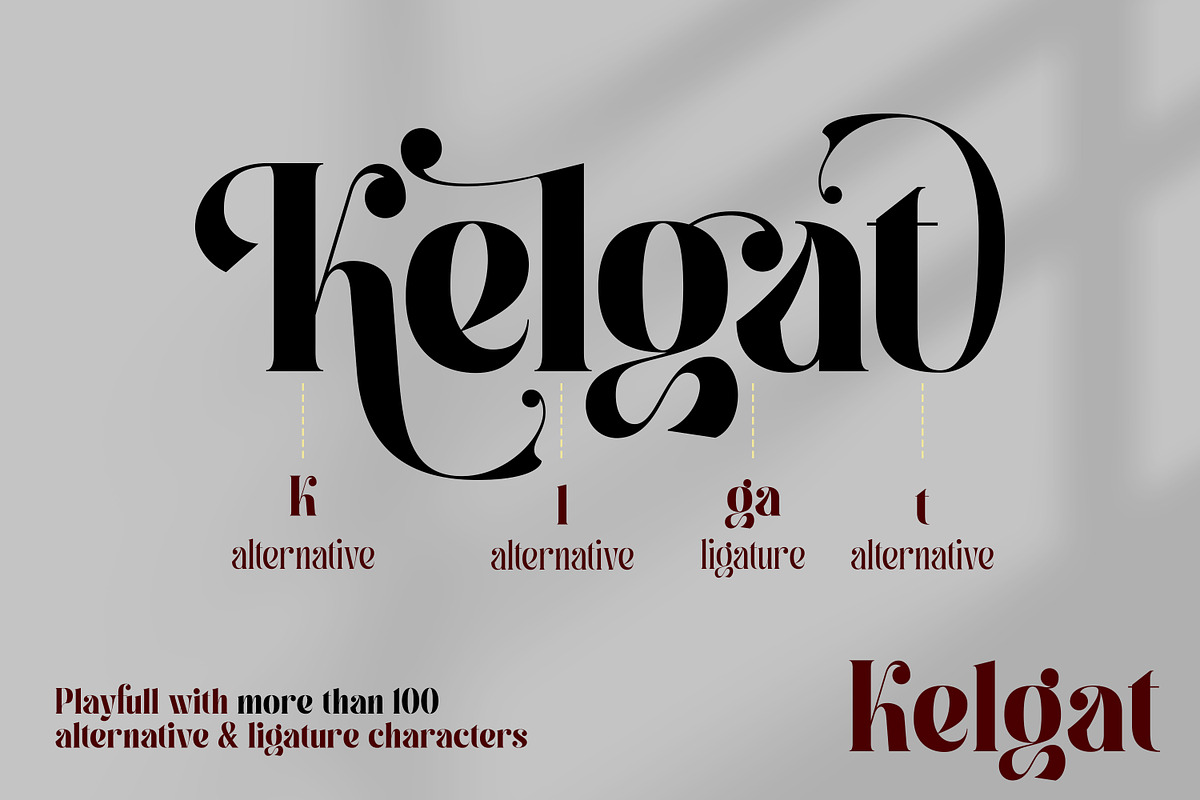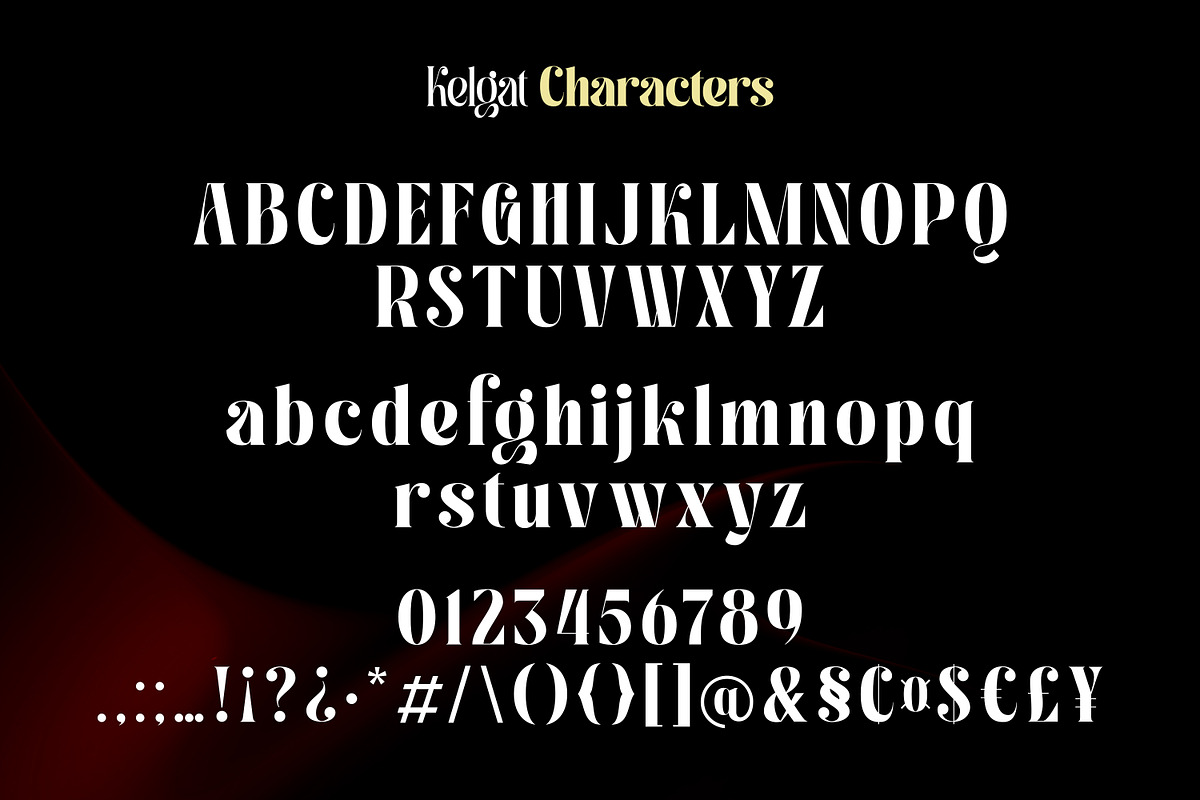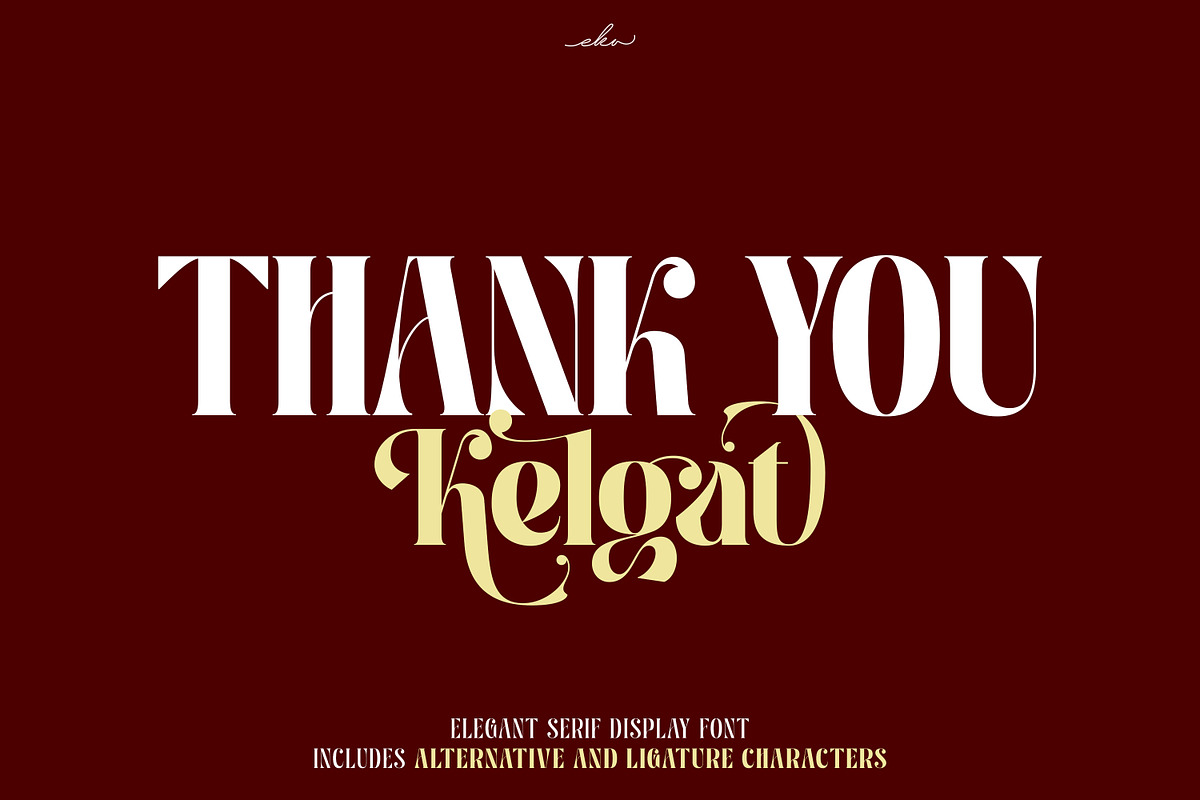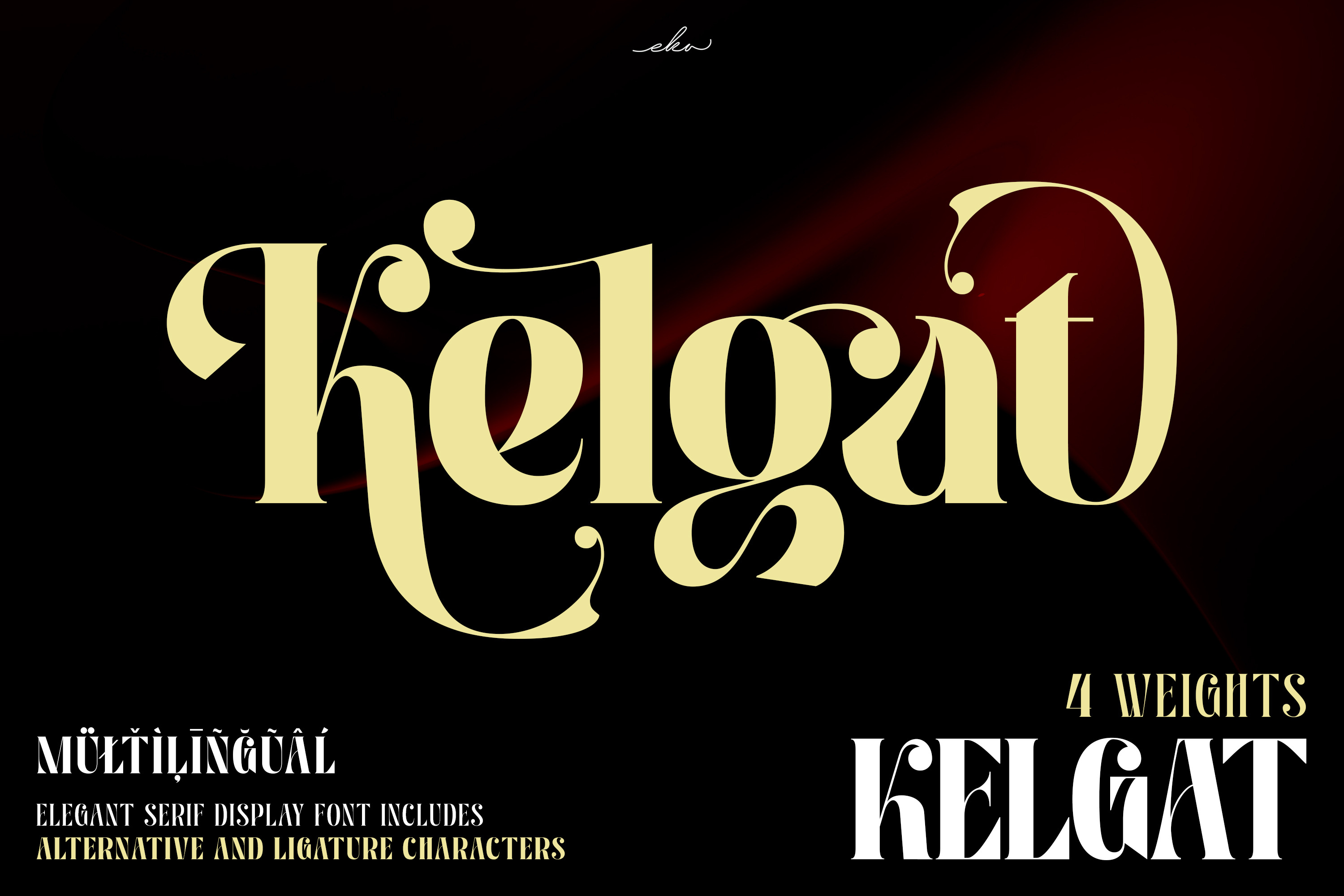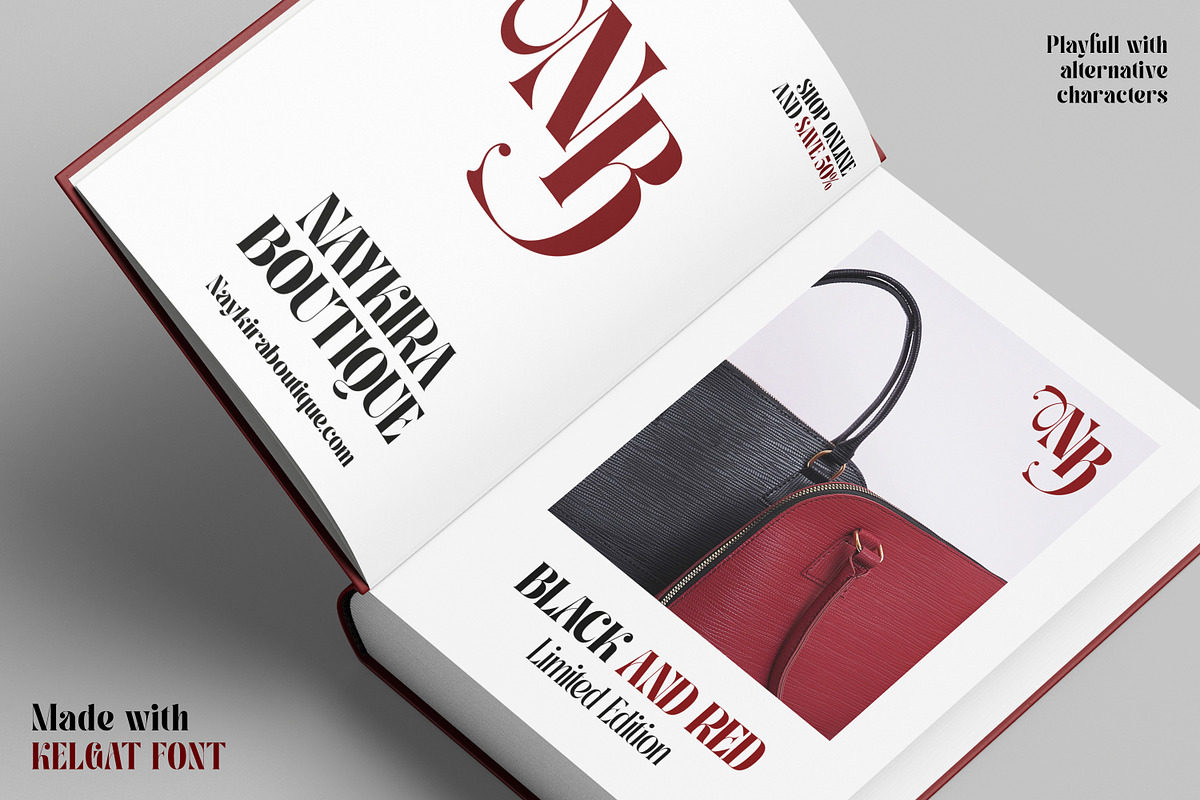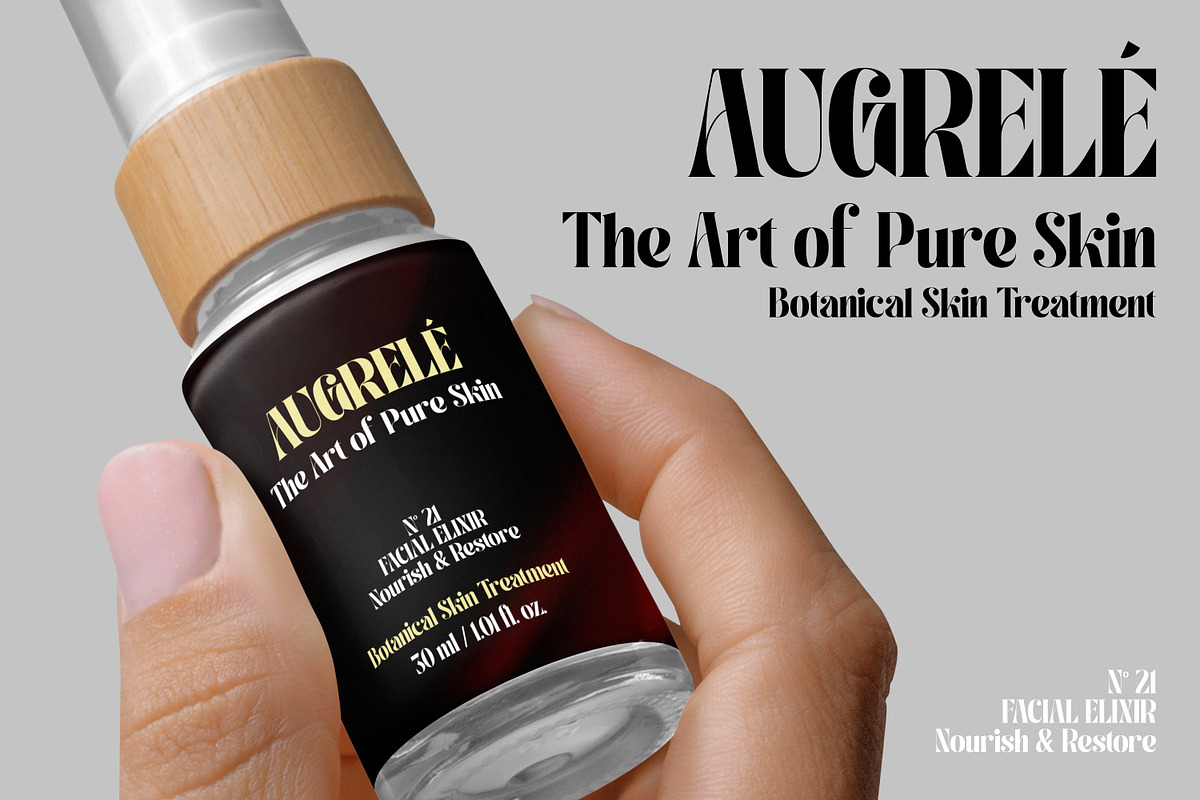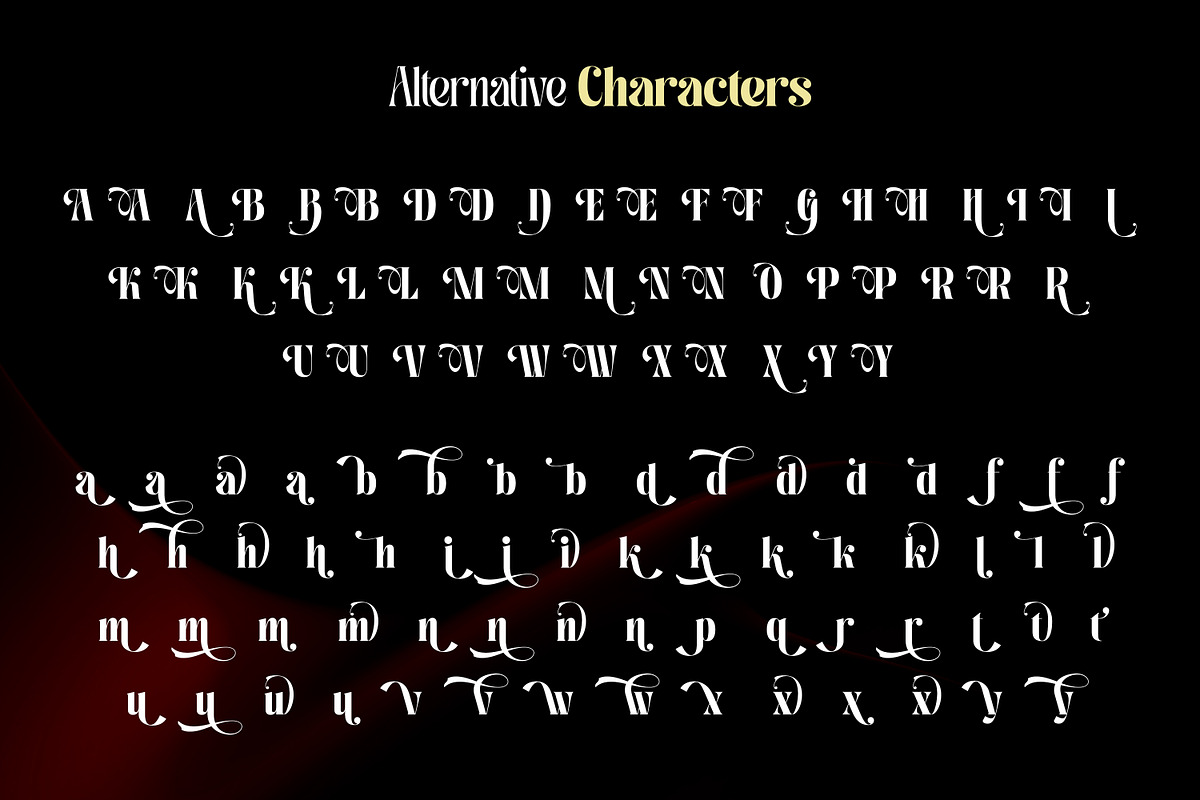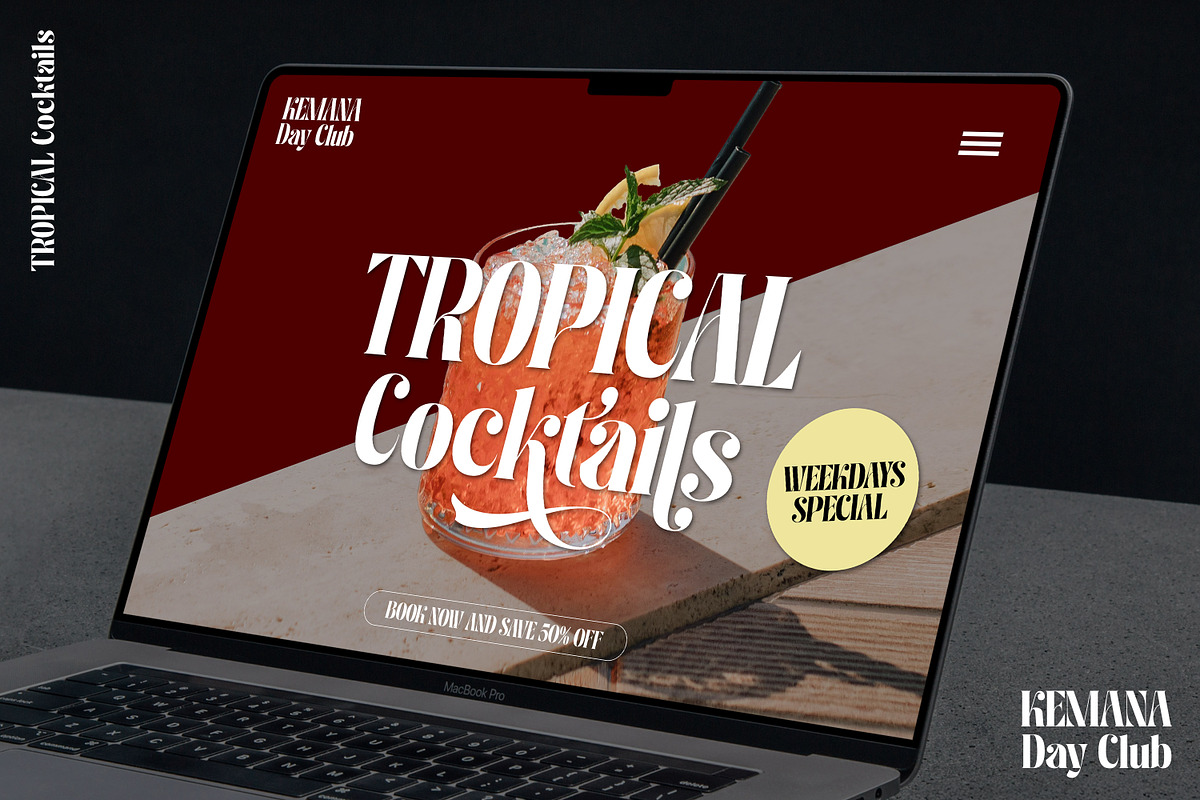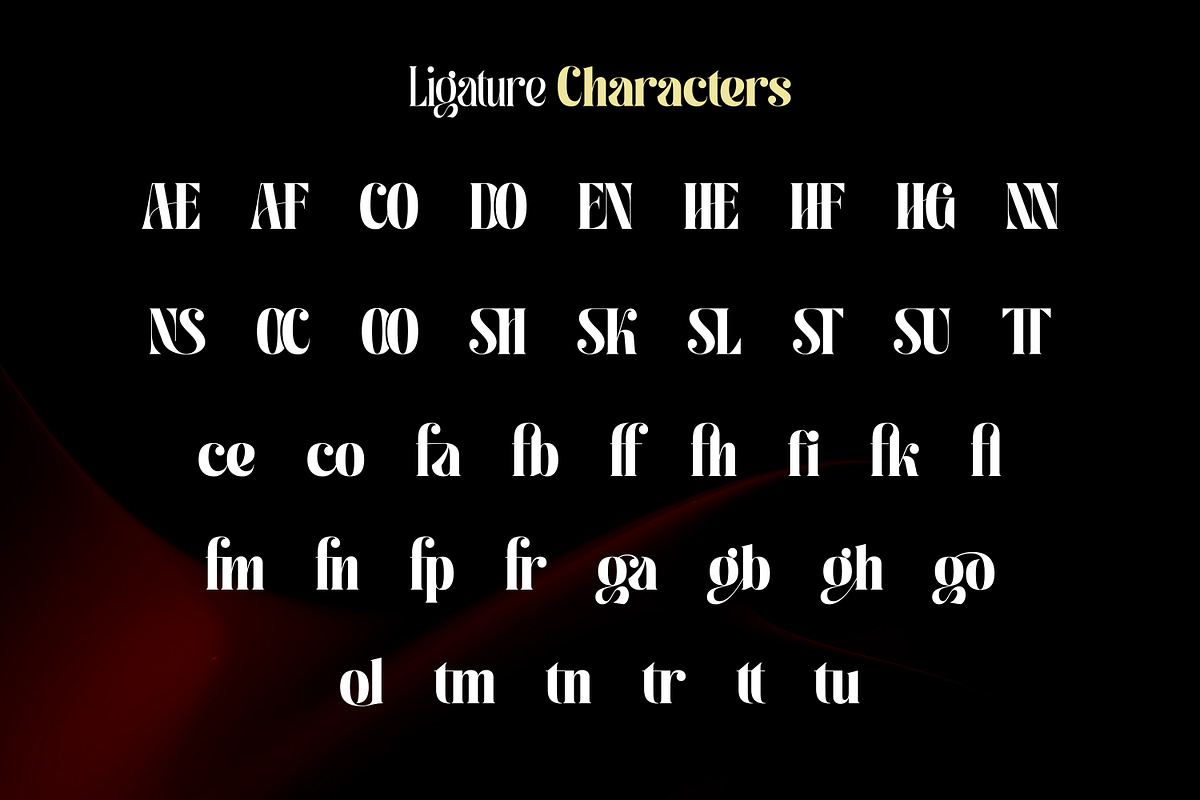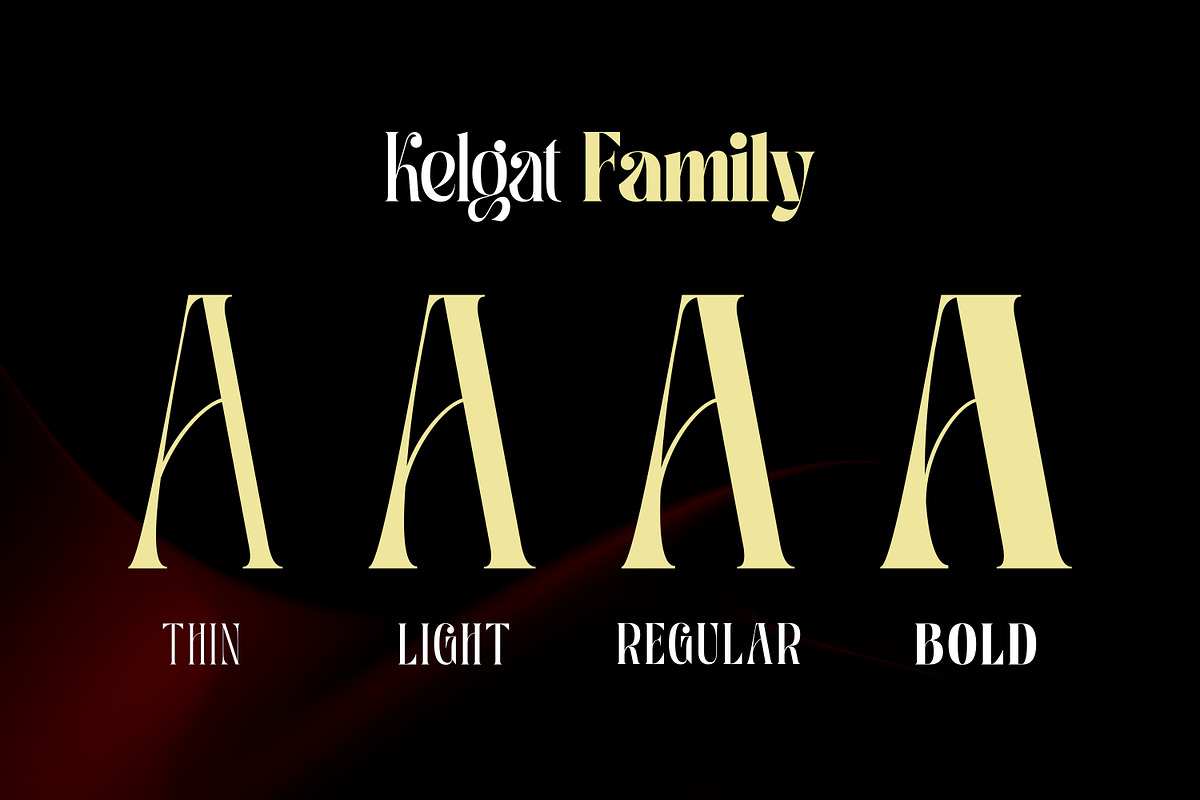
Kelgat — Elegant Serif Display Font
Kelgat is a sophisticated serif display font designed to bring elegance and a distinctive editorial touch to your designs. With its high-contrast letterforms, graceful curves, and striking decorative details, Kelgat is made to stand out while maintaining a refined and luxurious appearance. Designed with 4 weights, Kelgat gives you the flexibility to create everything from delicate and elegant compositions to bold, impactful headlines. Its collection of alternative characters and ligatures allows you to explore different combinations and create unique typographic treatments with ease. Perfect for fashion branding, luxury logos, editorial designs, beauty products, packaging, invitations, posters, magazine covers, social media graphics, and elegant advertising, Kelgat adds a sophisticated visual presence to any project. Whether you're creating a luxurious brand identity or an eye-catching headline, Kelgat gives your typography the versatility and character to make a lasting impression.
4 Weights
Uppercase & lowercase letters
OpenType Features
Perfect for Display & Branding
Explore the alternatives and ligatures to create your own distinctive typographic style with Kelgat.